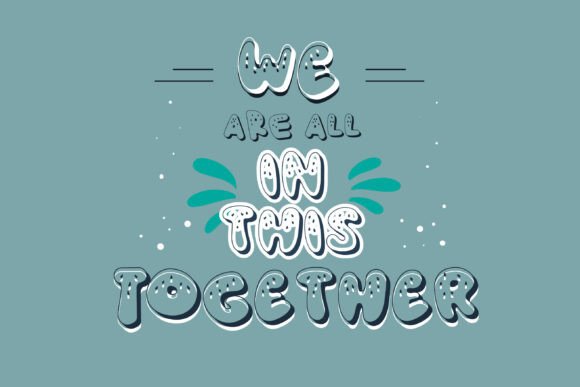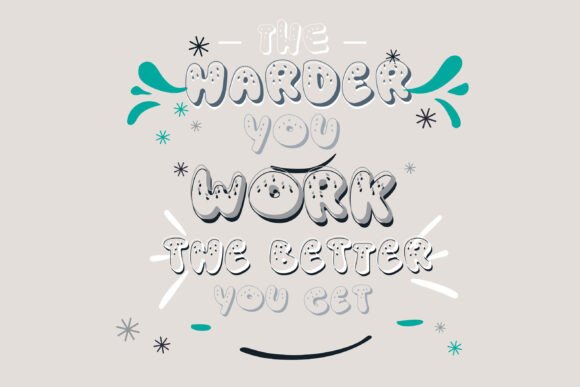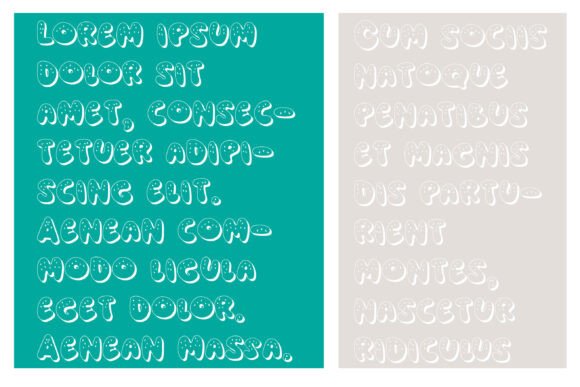
Blue Melon Font
This hand-crafted font is a soft, rounded, crafty font with melon seeds throughout.A hand-crafted font is a font that is designed to look like it was written by hand. It is often used for invitations, greeting cards, and other items. Handwritten fonts can be either formal or informal, and they can be used for a variety of purposes.